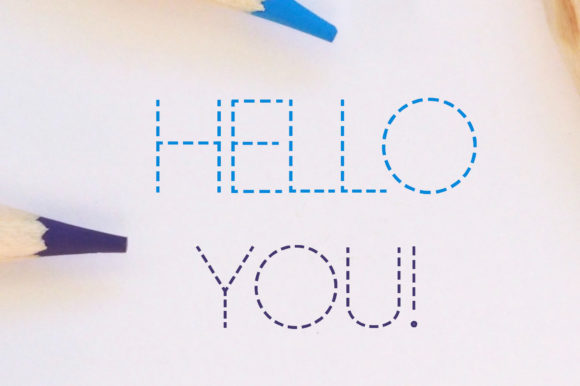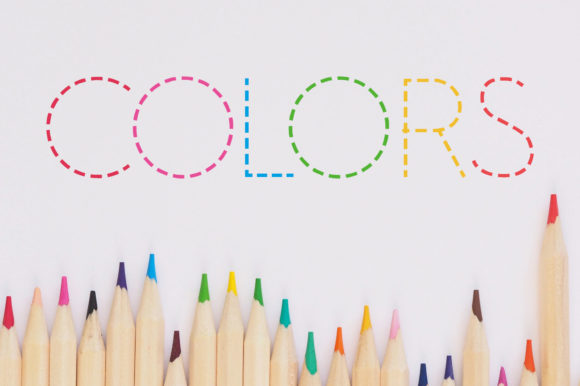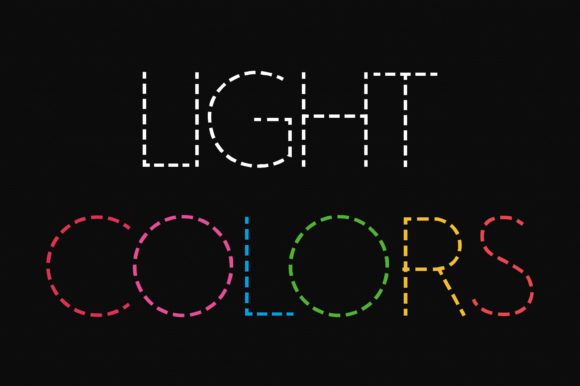
Introducing Dashed Line Font: Elevate Your Designs with a Unique Touch
Are you tired of using the same old fonts in your designs? Do you want to add a touch of creativity and uniqueness to your projects? Look no further than the Dashed Line Font! This simple yet striking display font is perfect for designers and crafters looking to make their designs stand out from the crowd.
What is Dashed Line Font?
Dashed Line Font is a one-of-a-kind display font that features a distinctive dashed line style. Its unique design makes it perfect for adding a creative twist to your designs, whether you’re working on a logo, poster, or social media graphic. The font is easy to read and versatile, making it suitable for a wide range of projects.
Key Features of Dashed Line Font
- Unique Design: The dashed line style of this font sets it apart from more traditional fonts, adding a touch of whimsy and creativity to your designs.
- Ease of Use: Dashed Line Font is easy to read and works well in a variety of design applications, from digital graphics to print materials.
- Versatility: This font is perfect for a range of projects, including logos, posters, social media graphics, and more.
- High-Quality: The font is designed with high-quality and crisp lines, ensuring it looks great in any size or resolution.
How to Use Dashed Line Font in Your Designs
Adding Dashed Line Font to your designs is easy! Here are a few ways you can incorporate this amazing font into your projects:
- Logos and Branding: Use Dashed Line Font to create a unique and memorable logo that sets your brand apart.
- Posters and Flyers: Add a creative touch to your posters and flyers with this eye-catching font.
- Social Media Graphics: Make your social media graphics stand out with Dashed Line Font.
- Digital and Print Materials: Use this font in a range of digital and print materials, including brochures, business cards, and more.
Benefits of Using Dashed Line Font
There are many benefits to using Dashed Line Font in your designs. Here are just a few:
- Stand Out from the Crowd: With its unique design, Dashed Line Font is sure to make your designs stand out from the crowd.
- Add a Creative Touch: This font adds a creative and playful touch to your designs, making them more engaging and interesting.
- Easy to Read: Despite its unique design, Dashed Line Font is easy to read, making it perfect for a range of applications.
- Versatile: This font is versatile and can be used in a range of design applications, from digital graphics to print materials.
Tips for Getting the Most Out of Dashed Line Font
Here are a few tips for getting the most out of Dashed Line Font:
- Experiment with Different Sizes: Try out different sizes of the font to see how it looks in various applications.
- Pair with Other Fonts: Experiment with pairing Dashed Line Font with other fonts to create a unique and interesting design.
- Use in Combination with Images: Use the font in combination with images to add an extra layer of creativity to your designs.
| Font Name | Dashed Line Font |
| Author | Vladimir Carrer |
Dashed Line Font is a simple yet unique display font that is perfect for designers and crafters looking to add a creative touch to their designs. With its ease of use, versatility, and high-quality design, this font is sure to become a staple in your design toolkit. So why wait? Add Dashed Line Font to your designs today and make them stand out from the crowd!